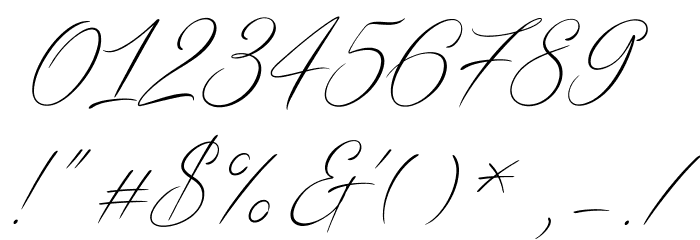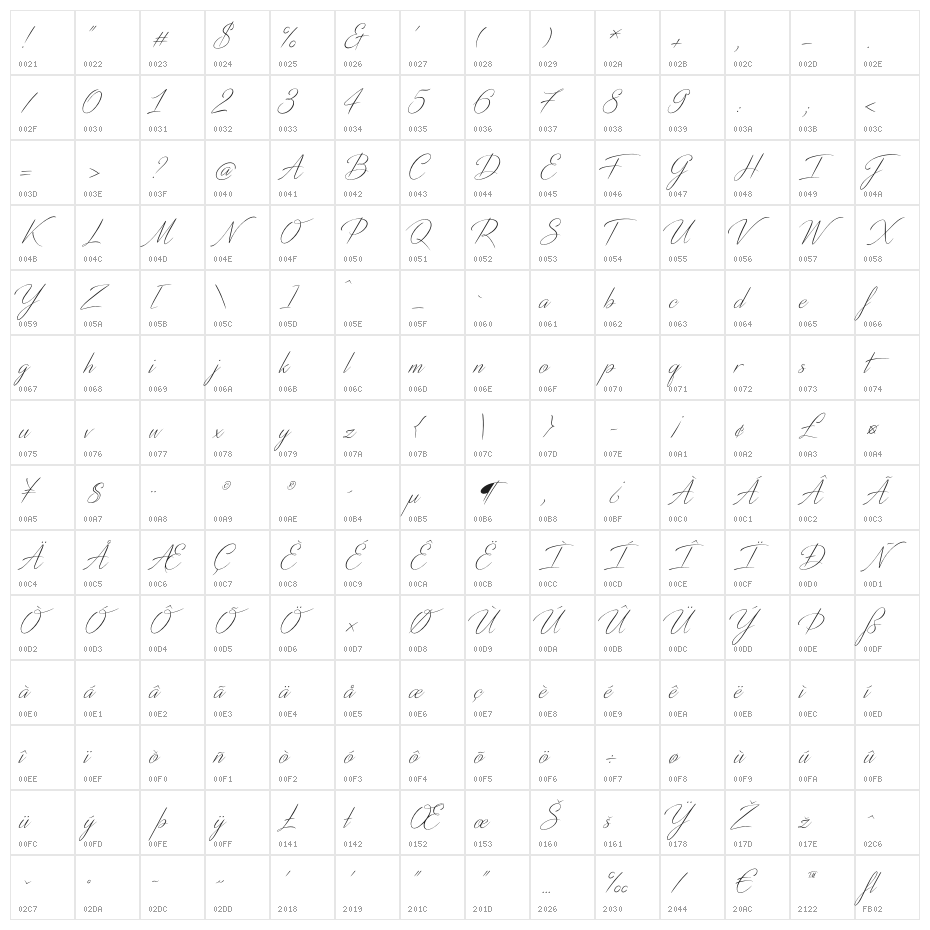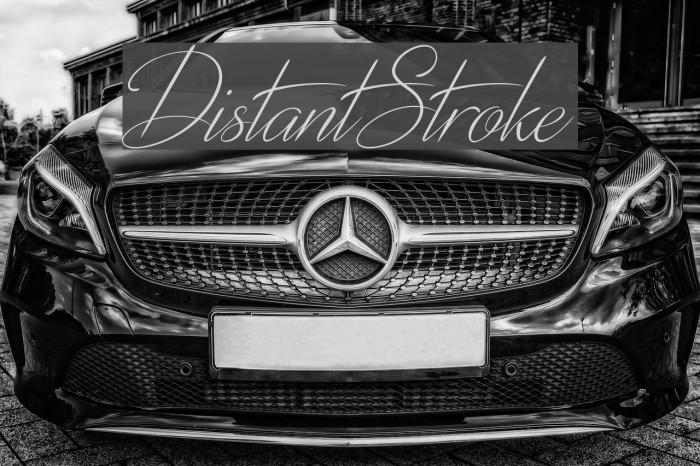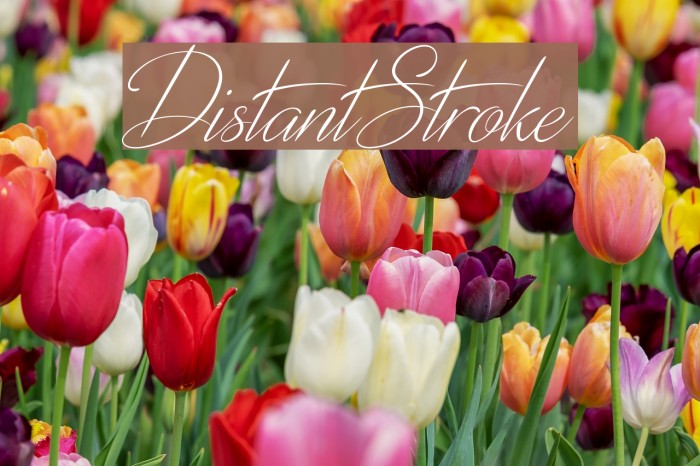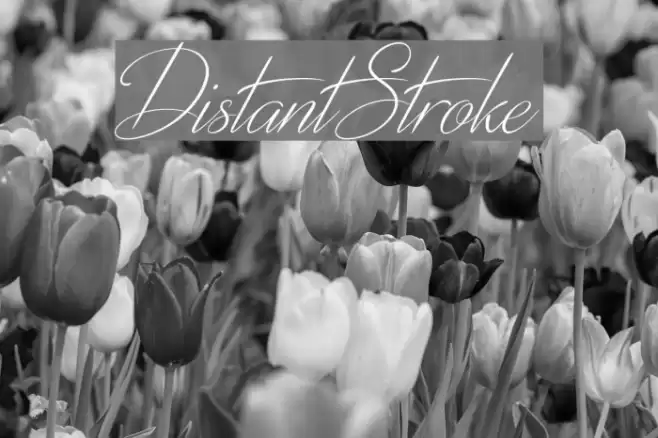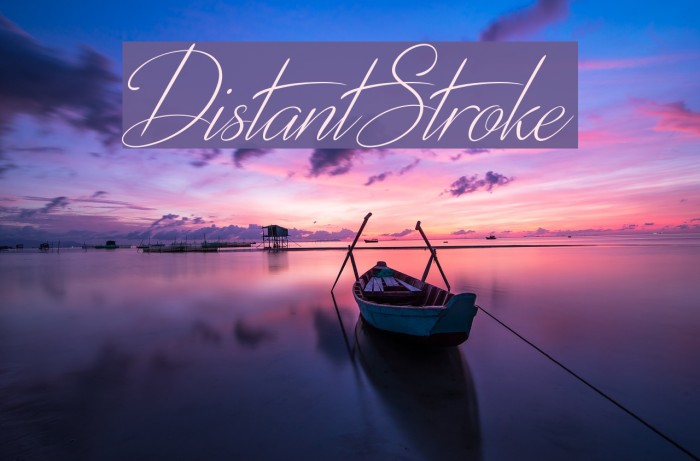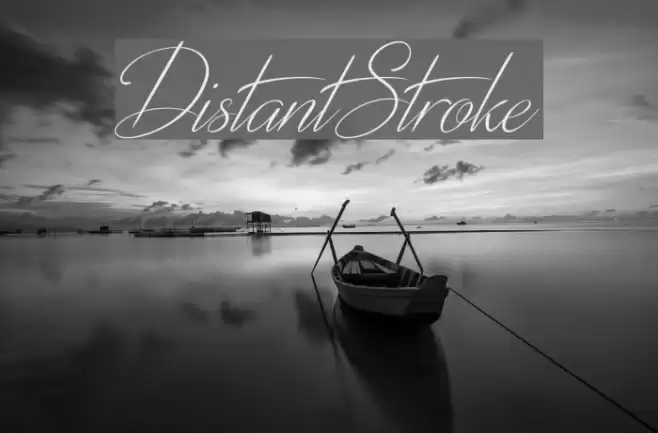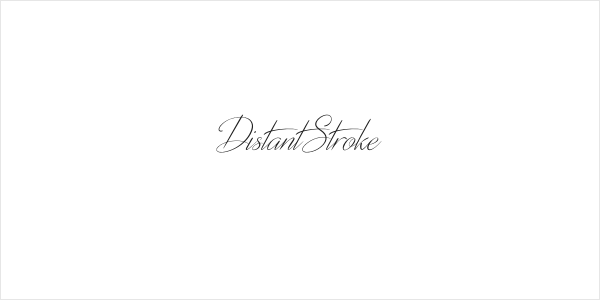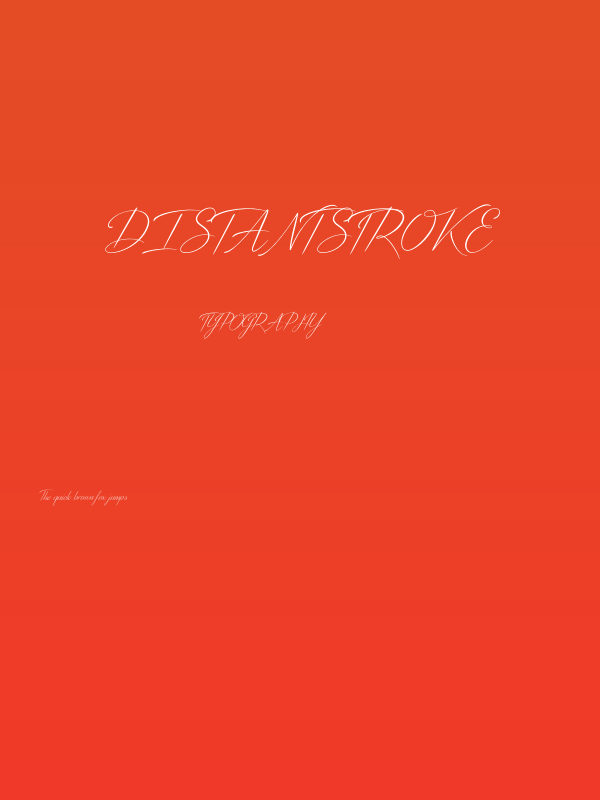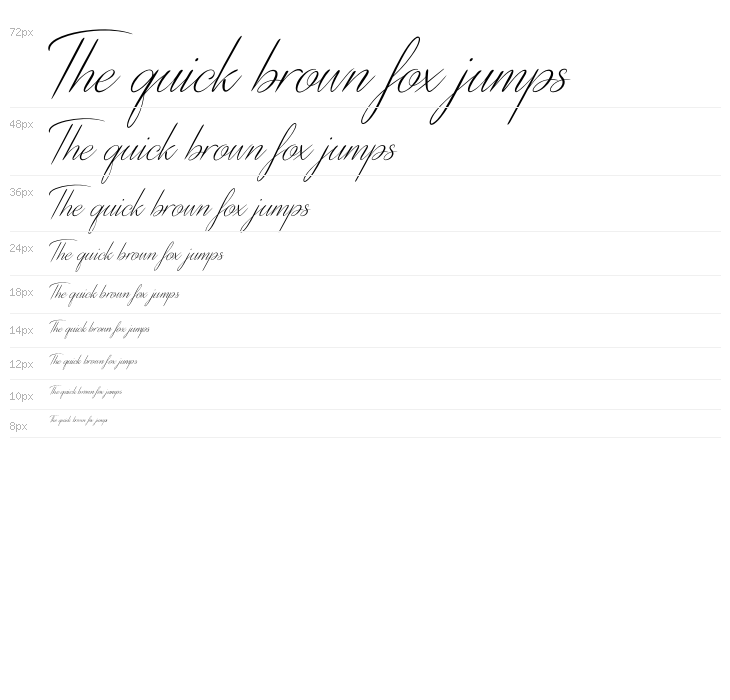
DistantStroke Font
DistantStroke Description
This elegant script font features flowing, interconnected strokes that give it a sophisticated and graceful appearance. The uppercase letters are tall and slender, with sweeping curves and delicate lines that create a sense of movement and fluidity. The lowercase letters maintain the same fluidity, with gentle loops and smooth transitions between characters. The numerals are consistent with the script style, featuring similar curves and a refined look. Special characters are seamlessly integrated, maintaining the overall aesthetic. This font exudes a sense of elegance and is perfect for formal invitations, branding, and any project that requires a touch of sophistication.